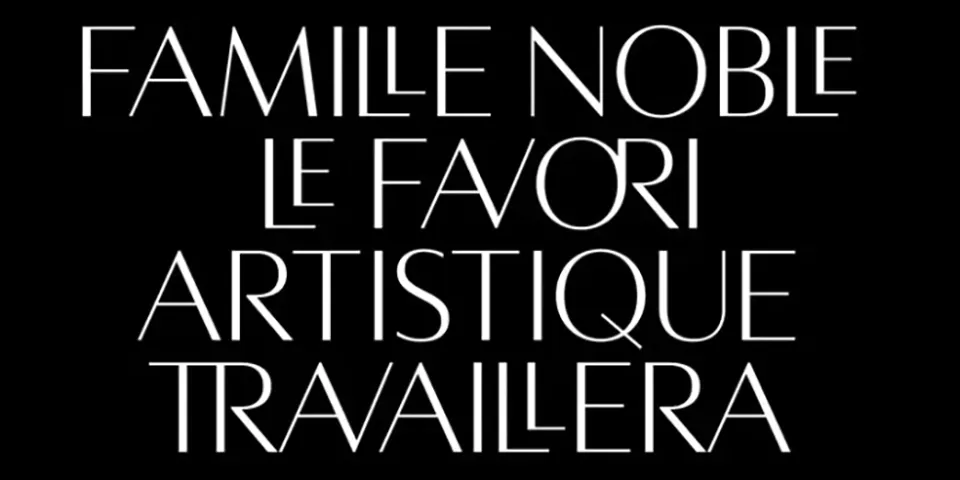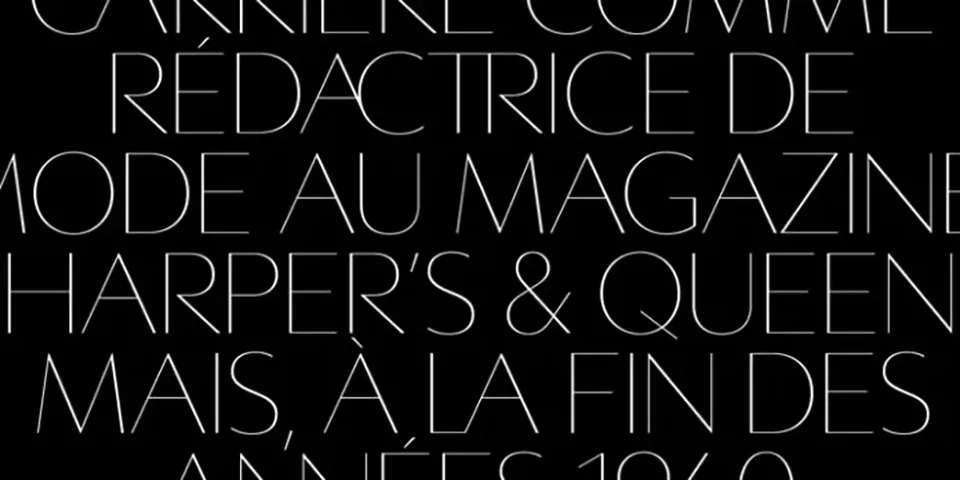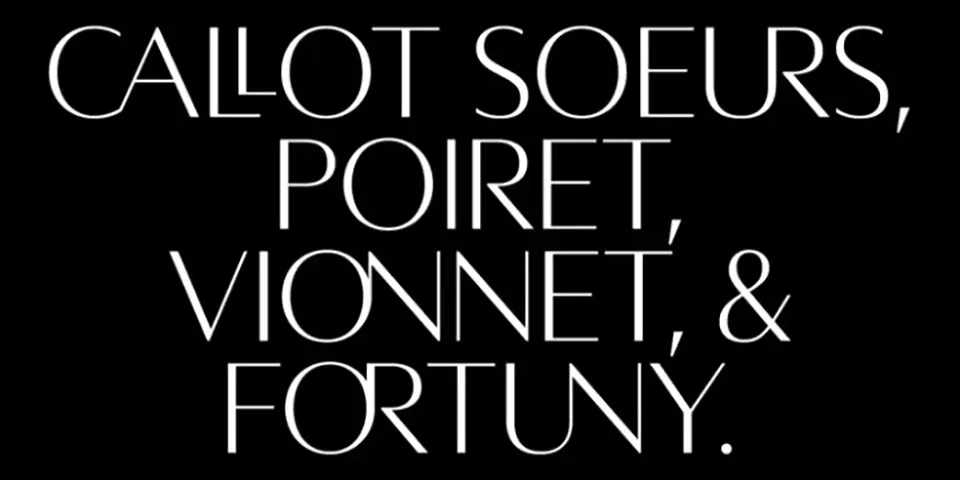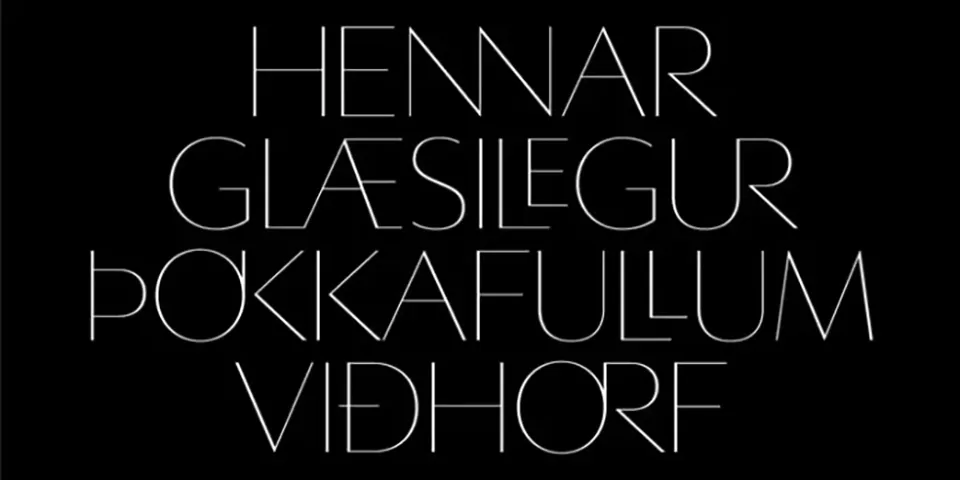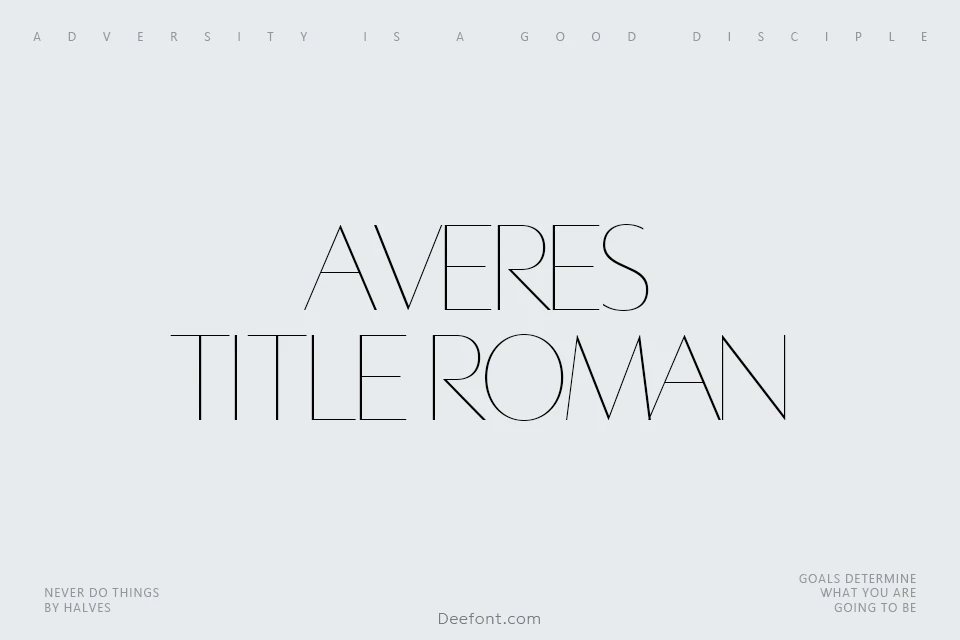
Averes Title Roman Font
Averes Title Roman Font is a sharp and sophisticated geometric sans typeface designed for impactful titling and display purposes. With its clean lines, modern aesthetic, and refined proportions, this font is perfect for creating striking headlines, logos, branding, and editorial designs. Averes Title Roman offers three versatile weights and includes an array of stylistic discretionary ligatures, accented variants, and multilingual support, ensuring flexibility for diverse creative needs. Its sleek and elegant design exudes professionalism while maintaining a contemporary edge. Whether used for bold statements or subtle details, Averes Title Roman Font elevates your designs with style and precision.